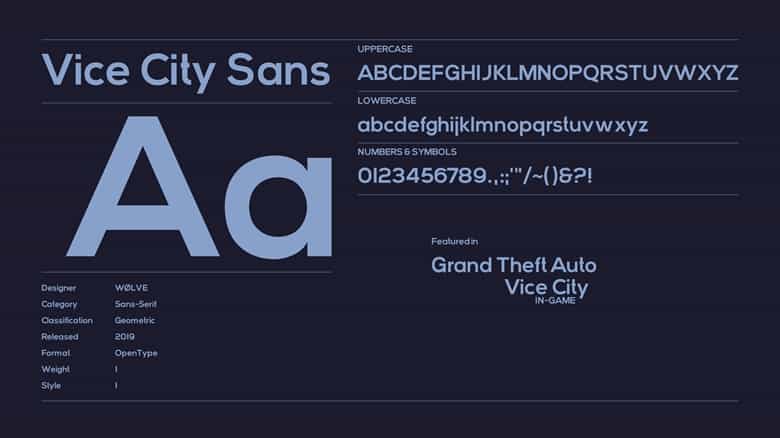
GT Vice City Sans is one of the cleanest sans-serif font family that is understated, precise and lean. The design is elegant and fashionable and it concerns a blended geometric plus deco typeface. It would appear to be a visually very balanced font, ideal for motion graphics, websites, prints and any well-polished geometrical designs that need very clear text to be read easily. The Vice City Sans is compliment with the European country languages and the character is in Cyrillic.